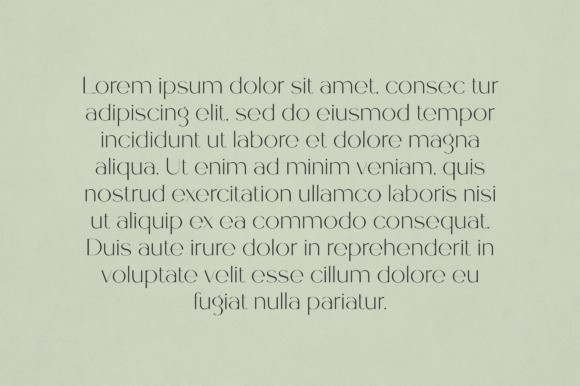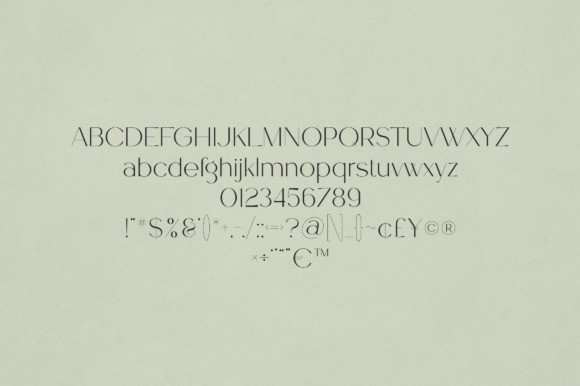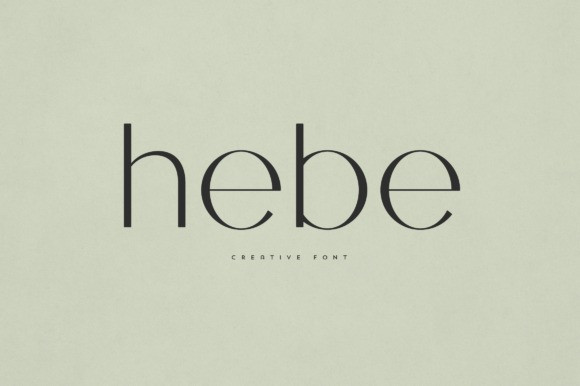
Hebe Font
Hebe Font is an elegant and versatile sans font that will make your typography truly unique! It will enchant every logo, branding, headline, or plain text!